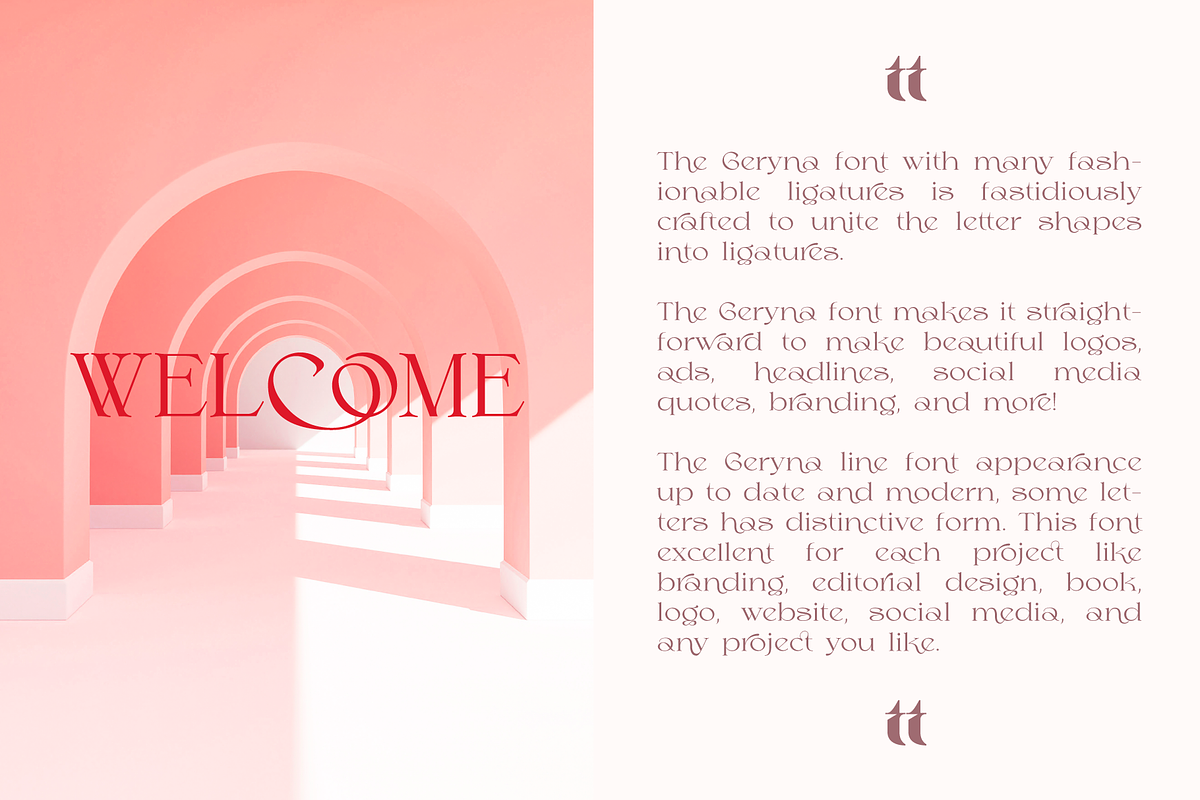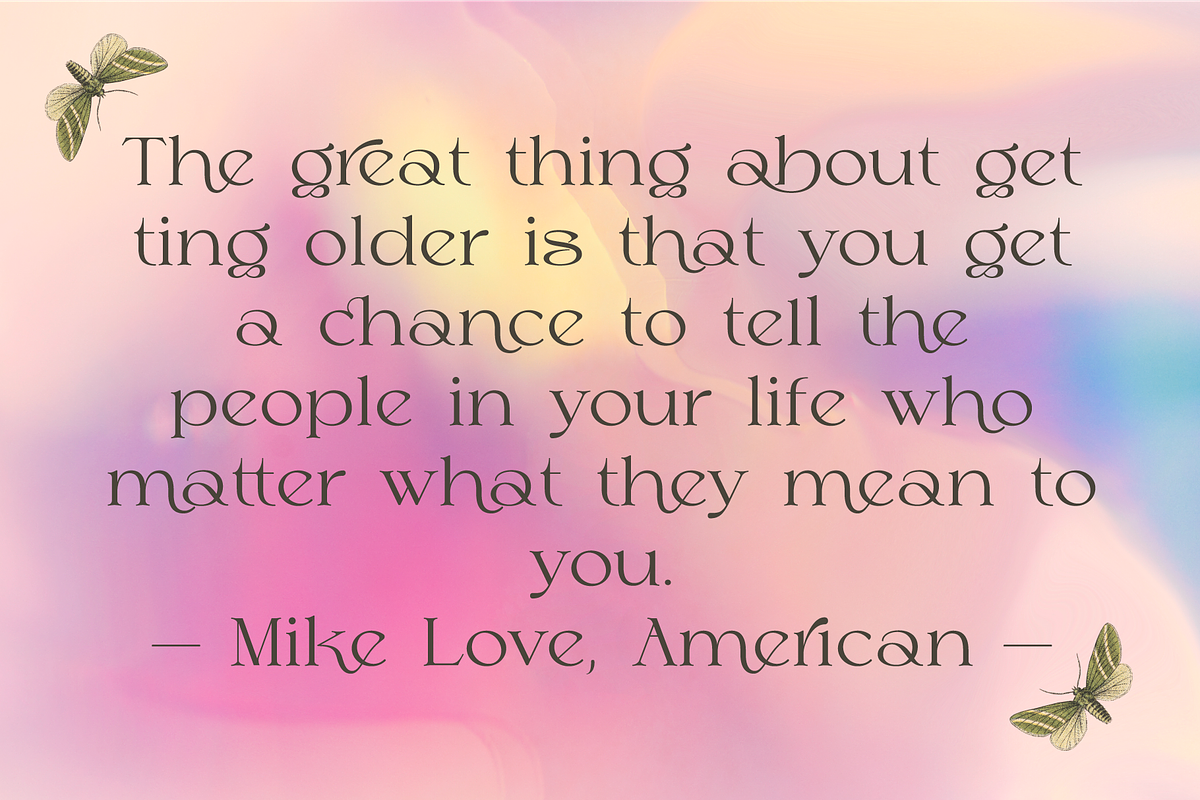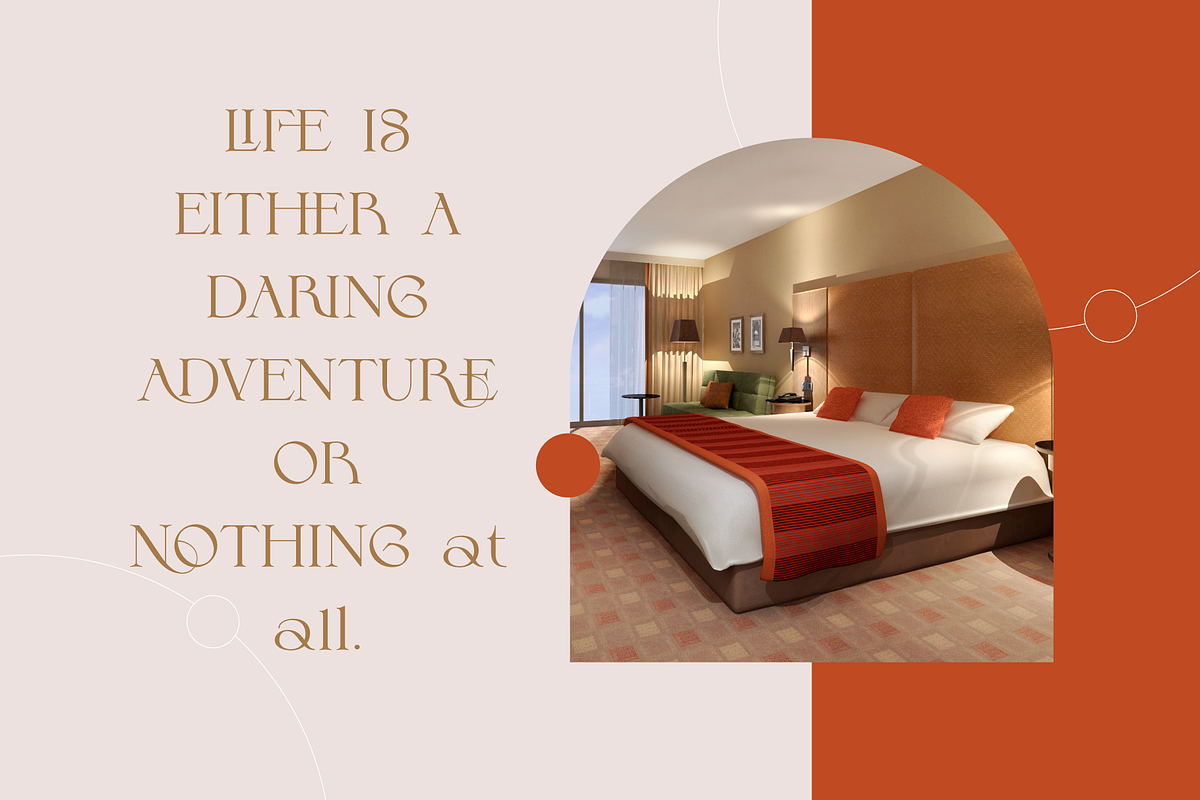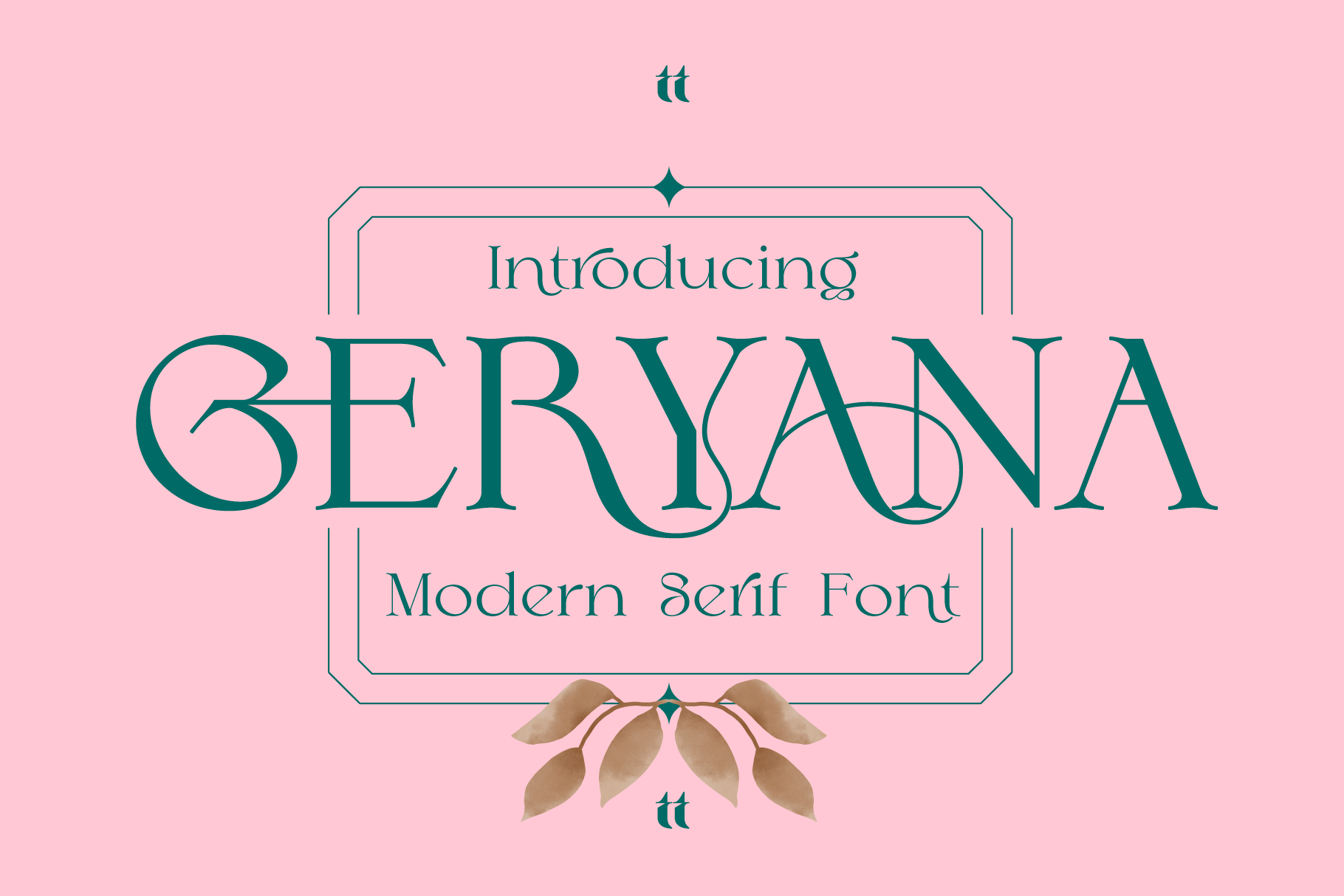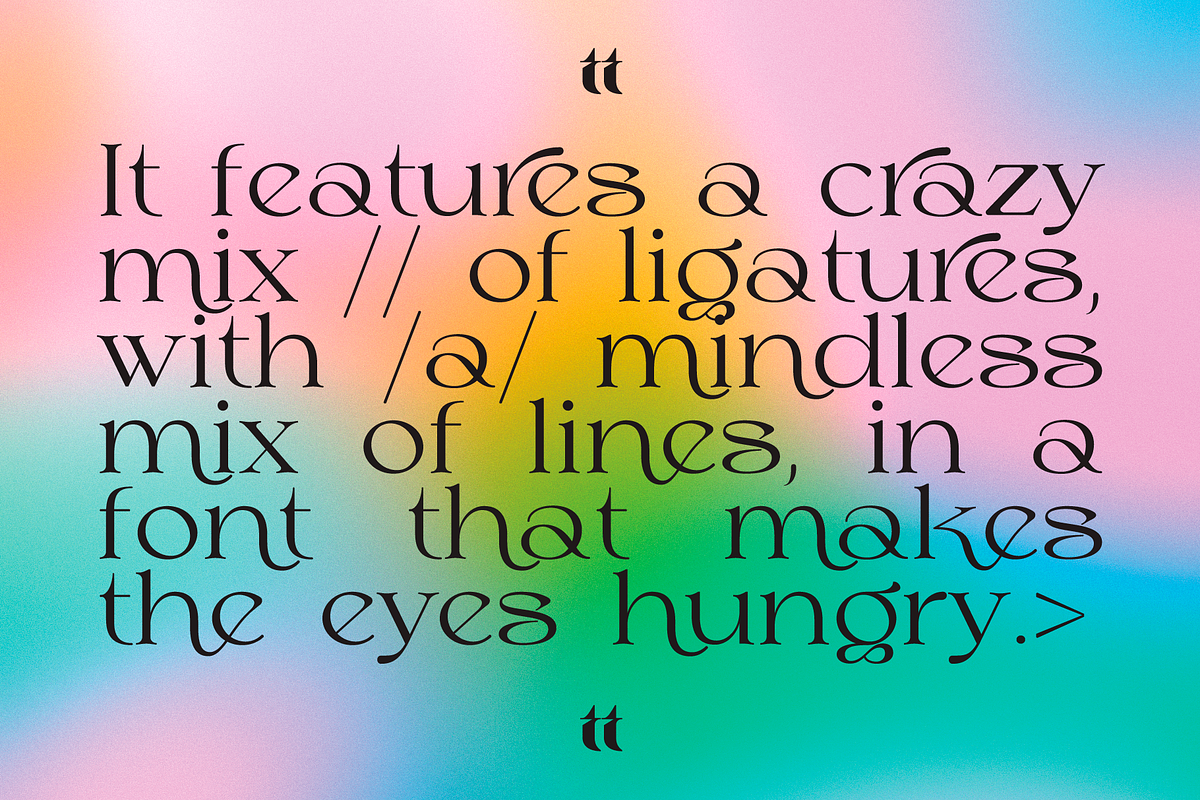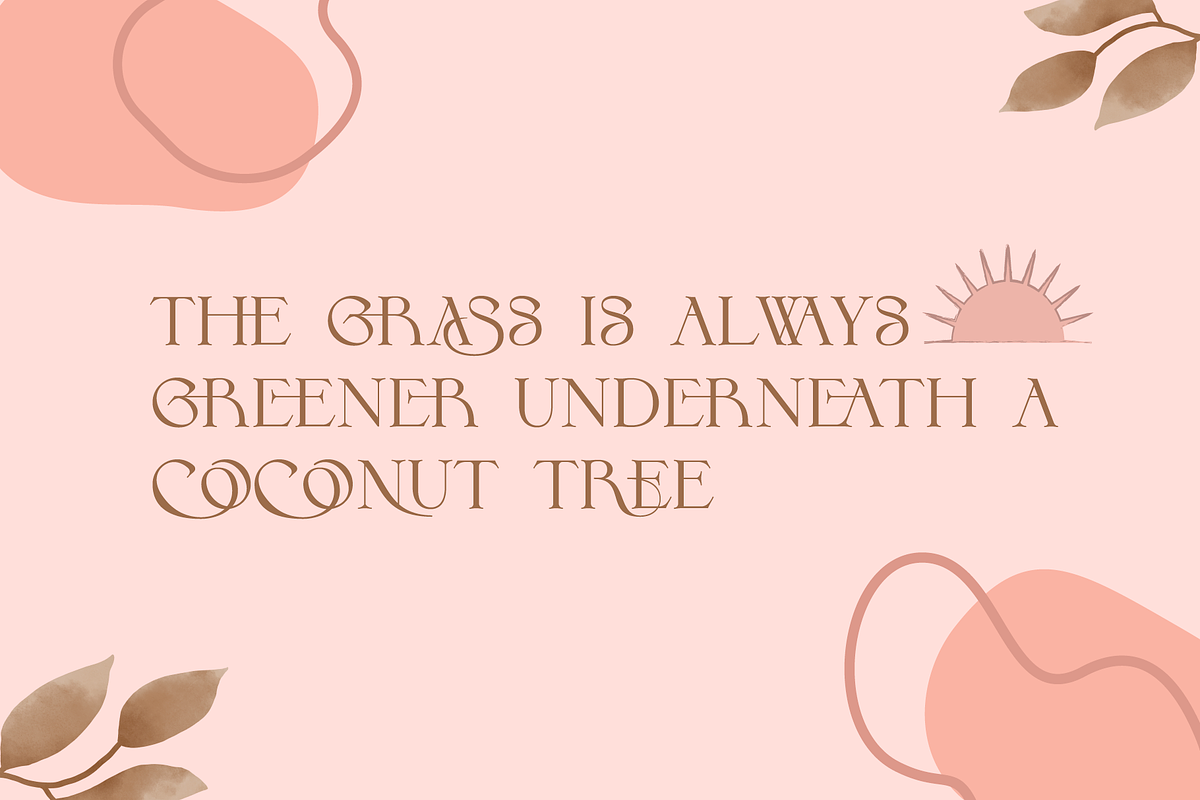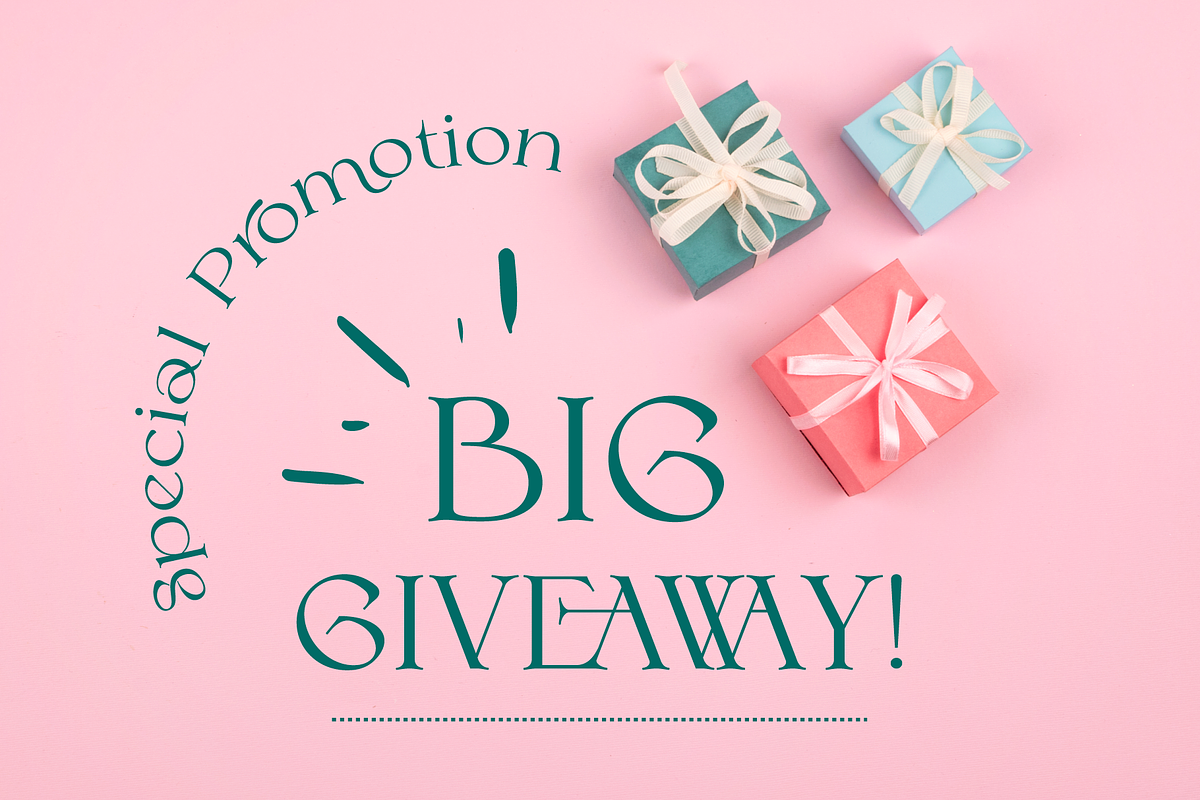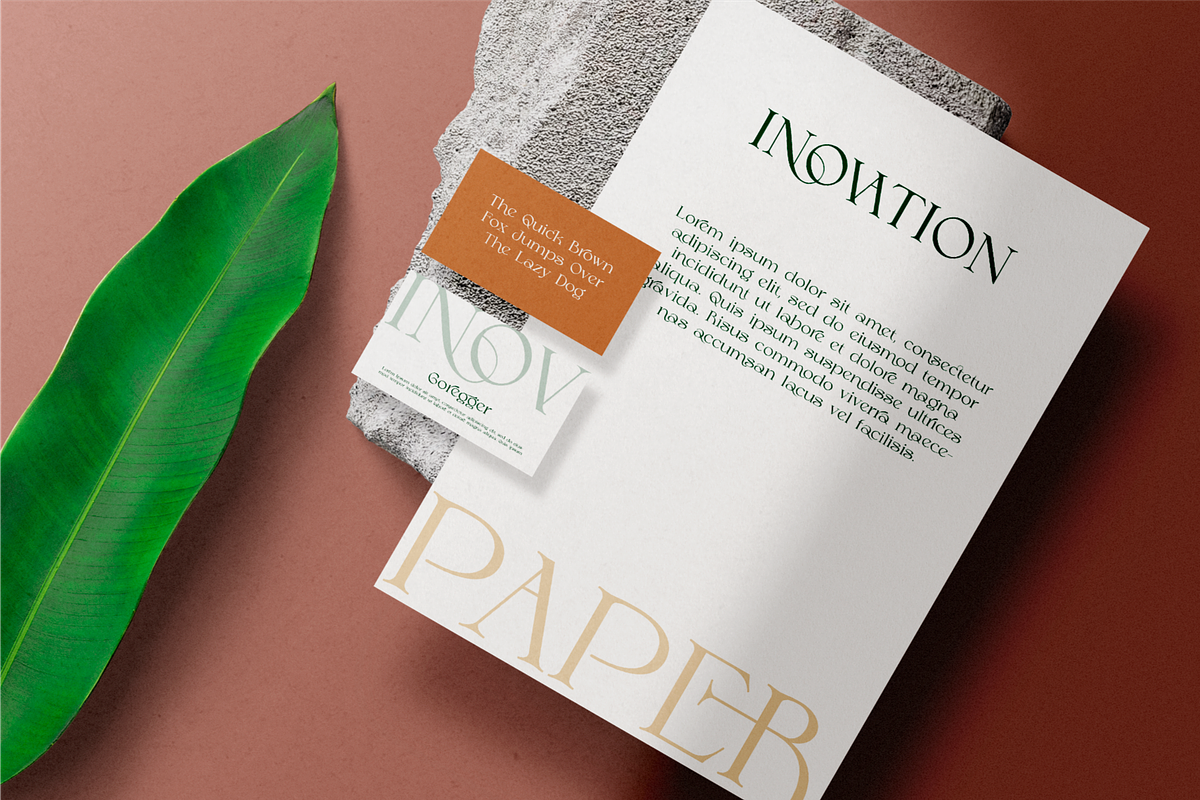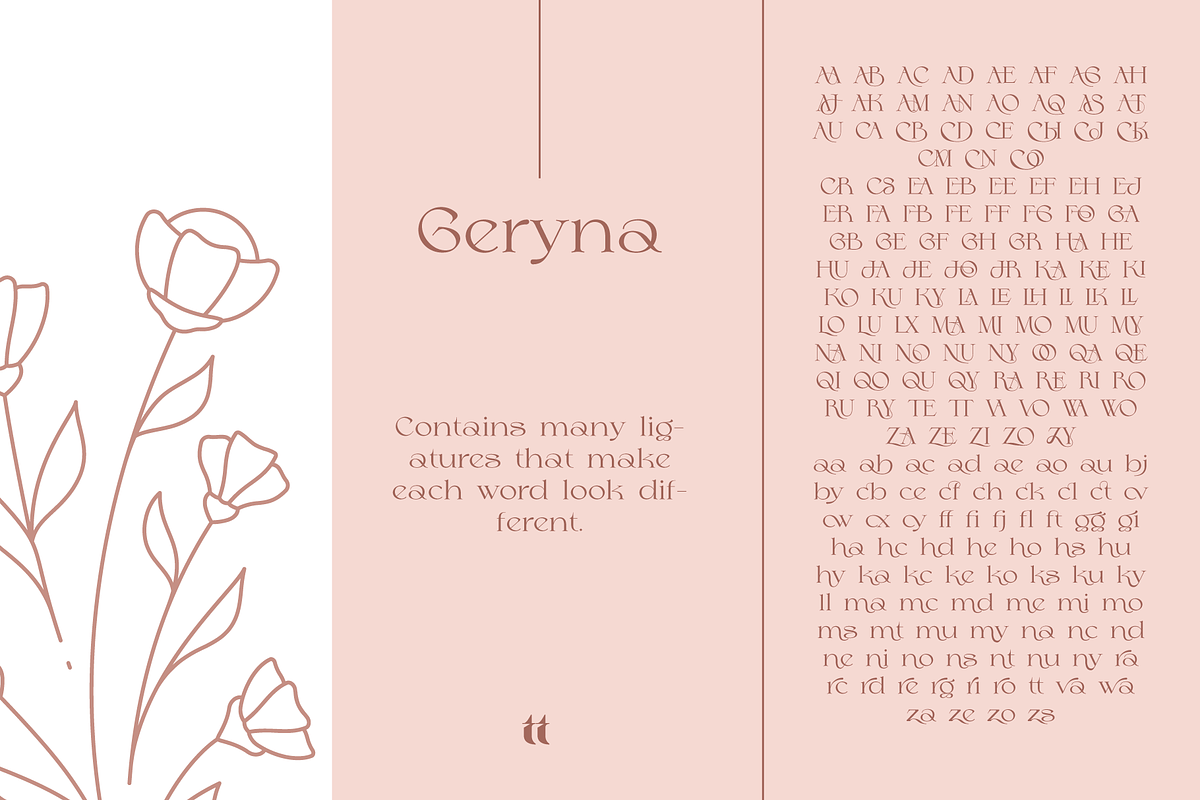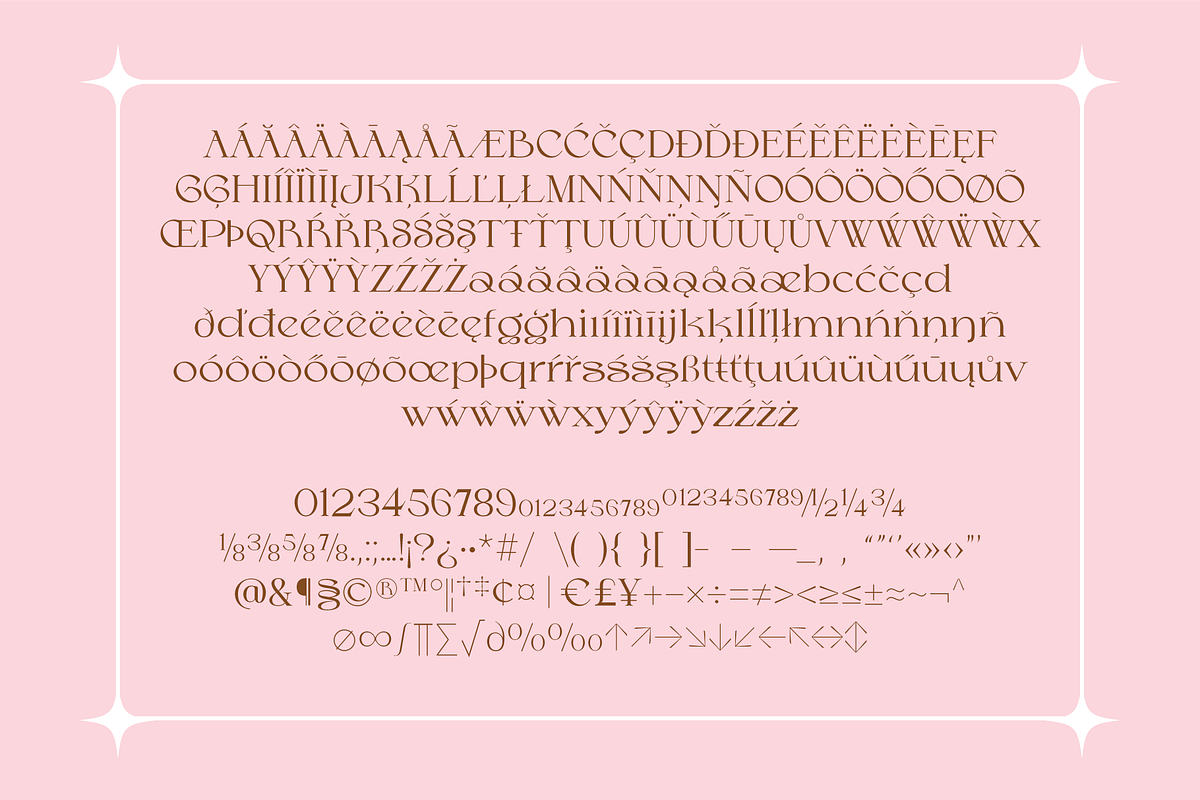
Geryana - Modern Serif Font
The Geryna font with many fashionable ligatures is fastidiously crafted to unite the letter shapes into ligatures.
The Geryna font makes it straightforward to make beautiful logos, ads, headlines, social media quotes, branding, and more!
The Geryna line font appearance up to date and modern, some letters has distinctive form. This font excellent for each project like branding, editorial design, book, logo, website, social media, and any project you like.